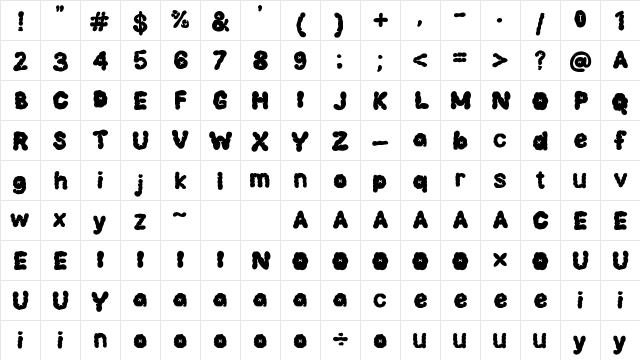
Cloudy Sunday Regular
Foundry: Slidehack at Mocosans Studio
Designer: Slidehack
Design Context for Cloudy Sunday
Cloudy Sunday is a composed and adaptable typeface that performs quietly and consistently across a wide range of design contexts.
Pro Tip: Use Cloudy Sunday in both headline and body roles to test its range before committing to a single application.